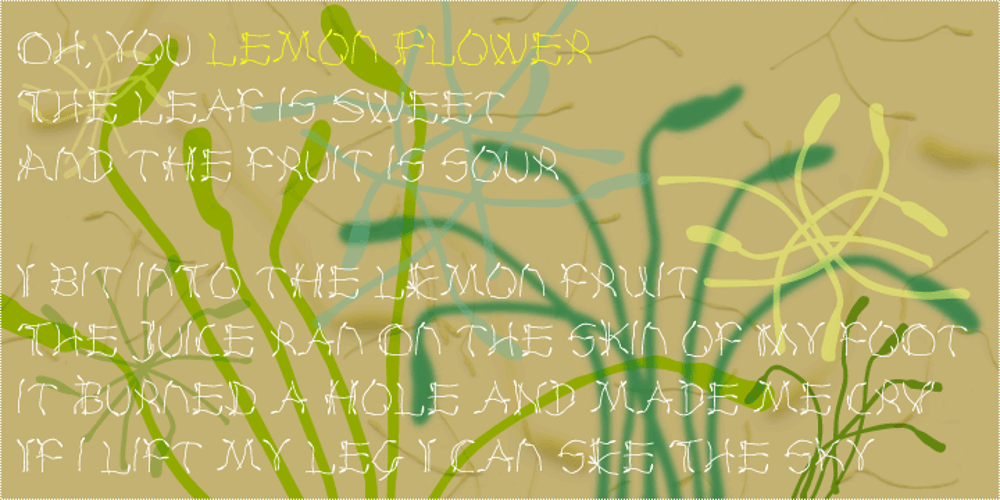
Lemon Flower
Lemon Flower font
Lemon Flower Font Family was designed by Tim Barnes and published by chicken. Lemon Flower contains 1 styles and family package options. A flower became crushed in the door frame of the studio (a fancy shed at the end of an overgrown garden)… pretty pale yellow stamens scattered on the floor… I sprinkled some on the scanner and arranged them into a light and airy font for springtime. There are two alphabets, both uppercase, but one with doubled uprights for variety, and to provide a hint of extra weight. I didn’t want to distort the natural shapes, or make up any of my own, so some letterforms are pretty quirky, and some characters just weren’t possible… but there’s a hidden bunch of flowery and grassy ornaments.